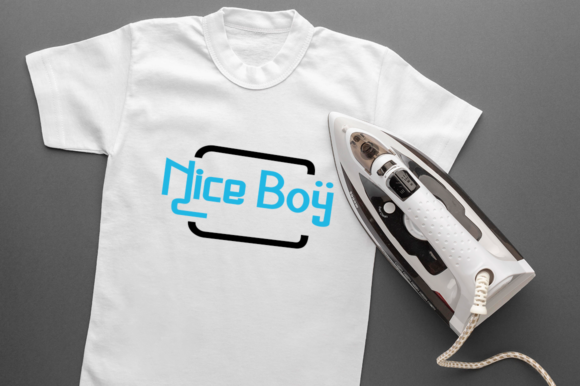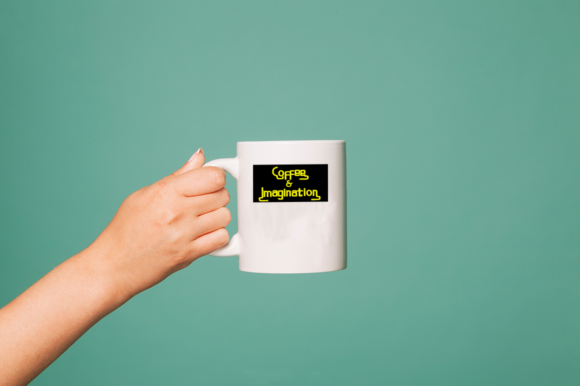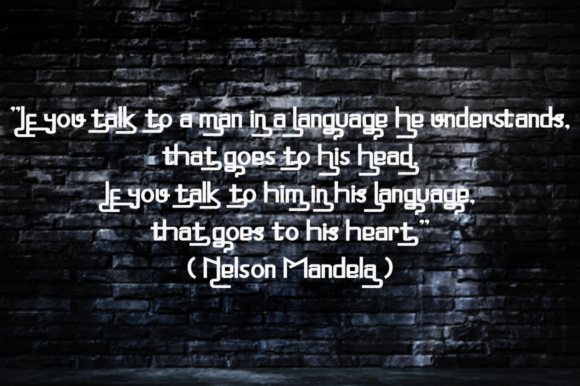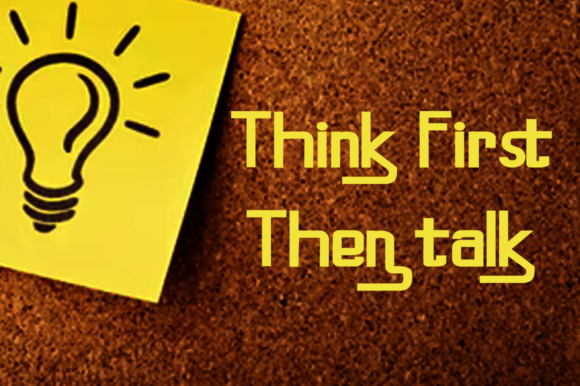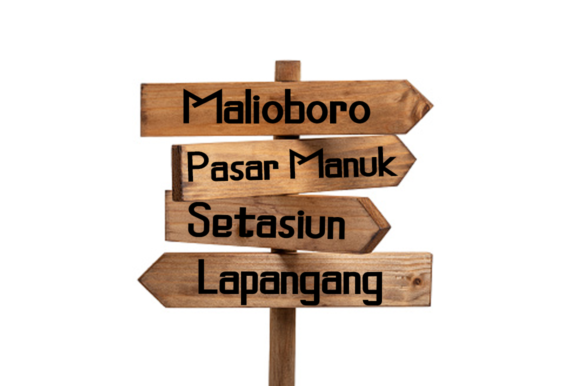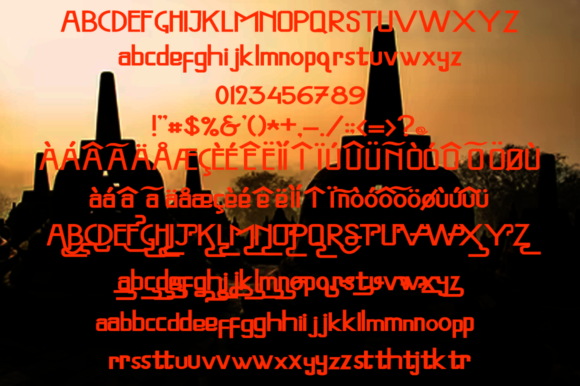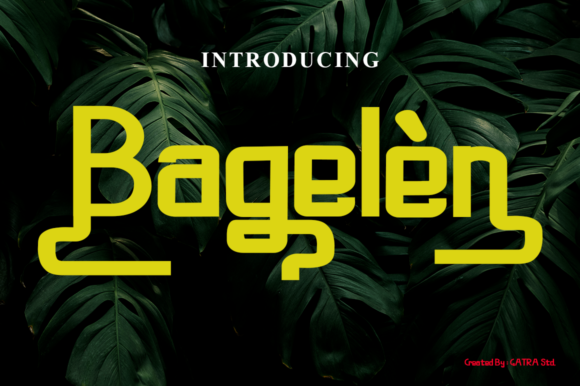
Introducing Bagelen Font: The Cool and Modern Display Font You Need
Are you tired of using the same old fonts for your design projects? Do you want to add a touch of modernity and coolness to your creative ideas? Look no further than Bagelen Font! This stunning display font is perfect for designers and crafters who want to make their projects stand out from the crowd.
What is Bagelen Font?
Bagelen Font is a modern and cool-looking display font that is perfect for a wide range of design projects. Its unique and stylish design makes it an excellent choice for anyone who wants to add a touch of sophistication and elegance to their work. Whether you’re working on a logo, brochure, poster, or any other design project, Bagelen Font is sure to impress.
Key Features of Bagelen Font
So, what makes Bagelen Font so special? Here are some of its key features:
- Modern and Cool Design: Bagelen Font has a sleek and modern design that is sure to catch the eye.
- Highly Versatile: This font can be used for a wide range of design projects, from logos and brochures to posters and more.
- Easy to Read: Despite its modern design, Bagelen Font is highly legible and easy to read, making it perfect for body text and headlines.
- Unique and Stylish: Bagelen Font has a unique and stylish design that is sure to make your projects stand out from the crowd.
How to Use Bagelen Font
Using Bagelen Font is easy! Here are some tips on how to incorporate it into your design projects:
- Pair it with Other Fonts: Bagelen Font pairs well with other fonts, so feel free to experiment with different combinations to find the perfect look for your project.
- Use it for Headlines and Titles: Bagelen Font is perfect for headlines and titles, where its modern and cool design can really shine.
- Experiment with Different Colors: Bagelen Font looks great in a variety of colors, so don’t be afraid to experiment and find the perfect color scheme for your project.
Benefits of Using Bagelen Font
So, why should you use Bagelen Font for your design projects? Here are some of the benefits:
- Stand Out from the Crowd: Bagelen Font is a unique and stylish font that is sure to make your projects stand out from the crowd.
- Professional and Sophisticated Look: Bagelen Font has a professional and sophisticated look that is perfect for businesses and individuals who want to make a great impression.
- Easy to Use: Bagelen Font is easy to use and can be incorporated into a wide range of design projects.
In conclusion, Bagelen Font is a cool and modern looking display font that is perfect for designers and crafters who want to add a touch of sophistication and elegance to their work. Its unique and stylish design makes it an excellent choice for a wide range of design projects, from logos and brochures to posters and more. So why not give Bagelen Font a try and see how it can make your projects stand out?